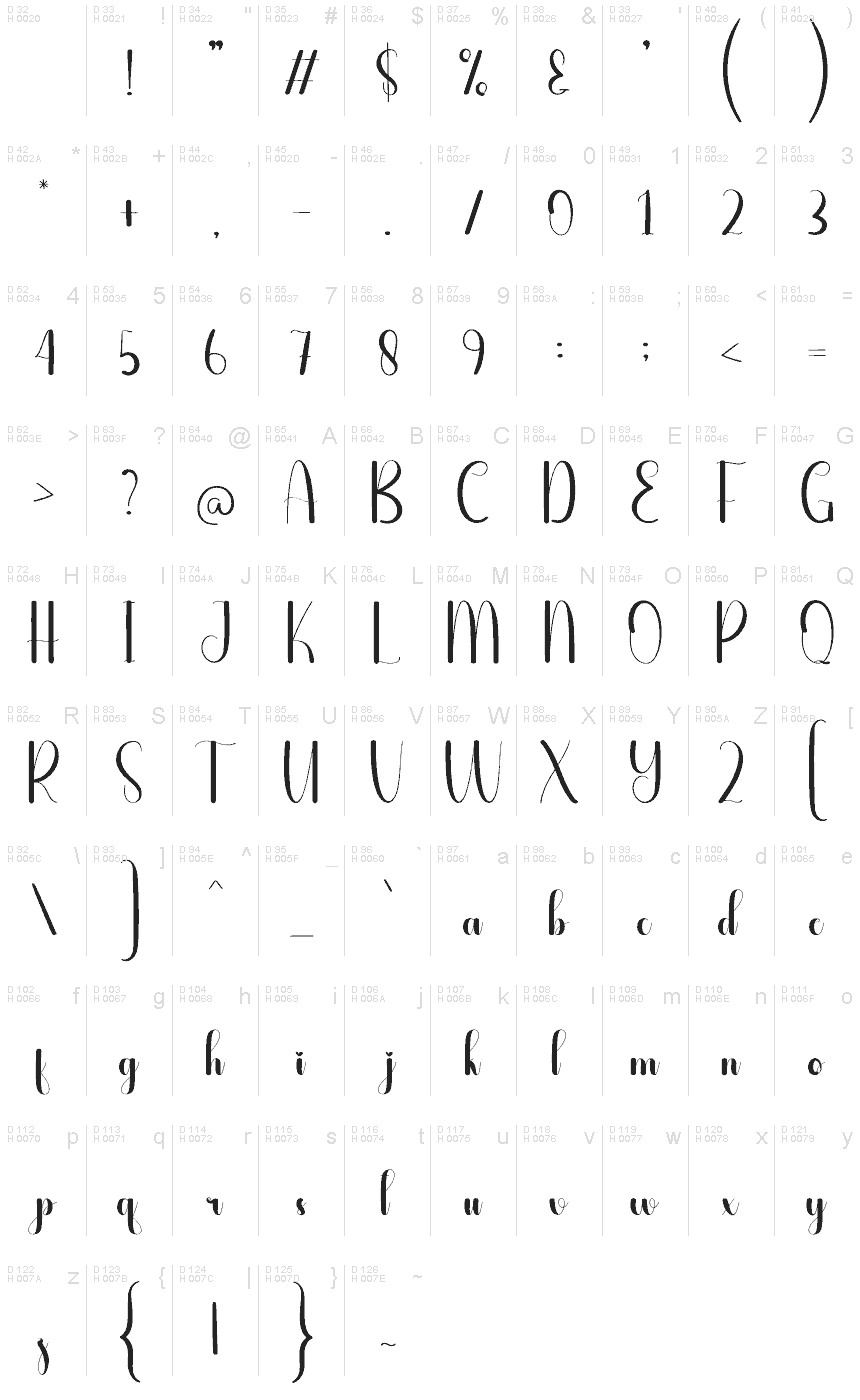
Outtable
Outtable font by Andi Moz is a free calligraphy font where elegant and flowing letters connect in a seamless style. Its ornate appearance with beautiful detailing creates a sophisticated design owing to the classic influences of this wonderful decorative typeface.
Suitable for formal invitations, Outtable can be your next branding tool and logo designer. It’s equally great for wedding invites, greeting cards, apparel designs, website headers, and educational printing projects. Packaging designs will look great as well when you use it on perfume, skincare products, or chocolate products for instance.